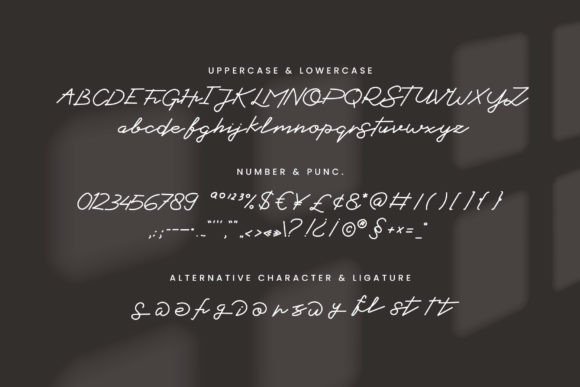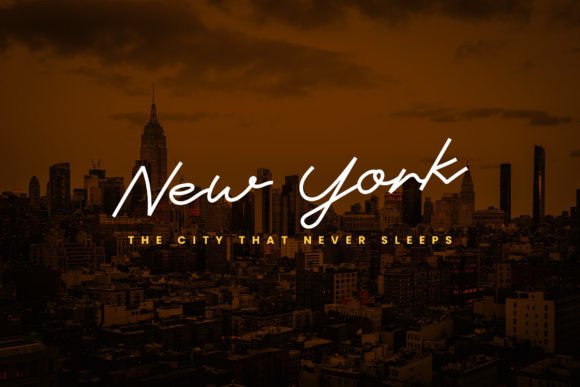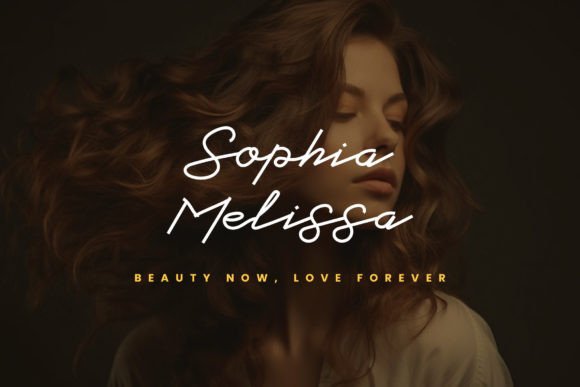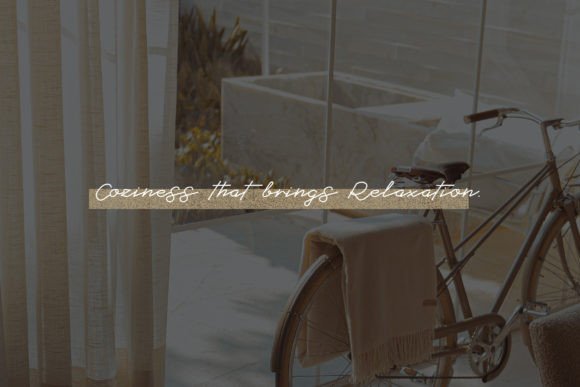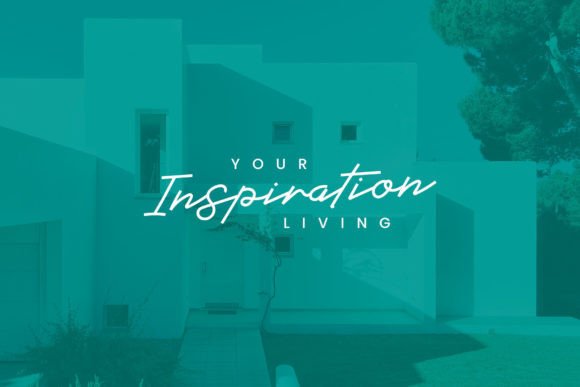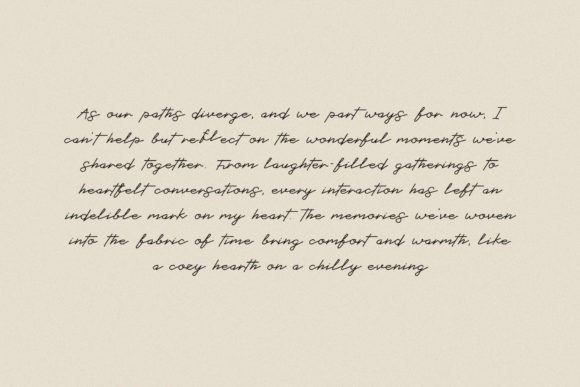
The Art of Elegant Typography: Unlocking the Power of Kingston Script Font
As designers, we’ve all been there – staring at a blank page, trying to conjure up the perfect font to convey the essence of our brand. It’s that moment of creative pause, where the right font can make all the difference. For those seeking to elevate their designs to new heights, look no further than the Kingston Script Font. This sophisticated typeface is a masterclass in elegance and refinement, drawing inspiration from the rich history of 10th-century Andalusian physician Al-Zahrawi.
The Kingston Script Font is a versatile tool that adds an air of sophistication to any design. With its delicate curves and fine details, it’s perfect for luxury branding, high-end invitations, and exclusive product packaging. Whether you’re a seasoned designer or just starting out, this font is a valuable addition to your toolkit, offering a unique opportunity to create designs that exude class and distinction.
- Unique Characteristics: The Kingston Script Font features a beautiful, handwritten script style with subtle flair and movement, making it perfect for creating elegant and sophisticated designs.
Designer Review: Kingston Script Font
First off, let me say that I love the ✨ elegant feel of Kingston Script Font. It’s perfect for creating a high-end, luxurious vibe in any design project. The font’s connection to traditional script writing is undeniable, making it a great choice for those who want a touch of classic sophistication.
Some of the key features that make Kingston Script Font stand out include:
- ✨ Beautiful cursive strokes that add a touch of elegance to any text
- ✨ Wide range of language support making it suitable for multilingual projects
- ✨ Highly customizable with various font weights and styles
However, I do have a few concerns:
- ⚠️ Limited availability on some operating systems and devices
- ⚠️ Not ideal for small text sizes due to its complex design
Overall, I think Kingston Script Font is a great choice for designers who want to add a touch of sophistication and elegance to their projects. While it may have some limitations, its unique design and features make it a valuable addition to any design library.
The Kingston Script Font is ideal for:
- Party and event signage
- Personalized gifts and cards